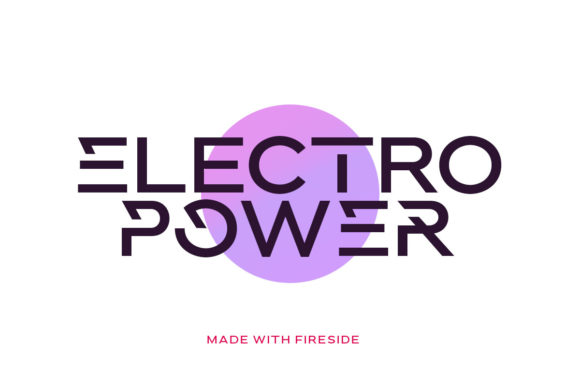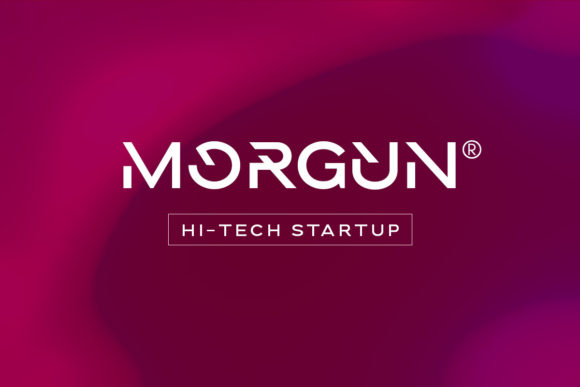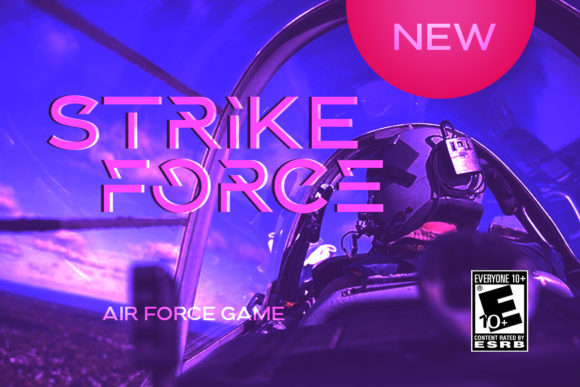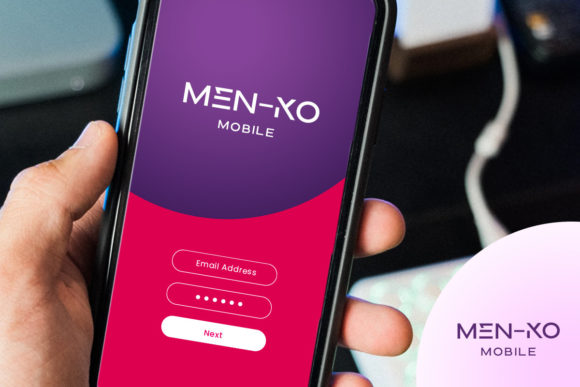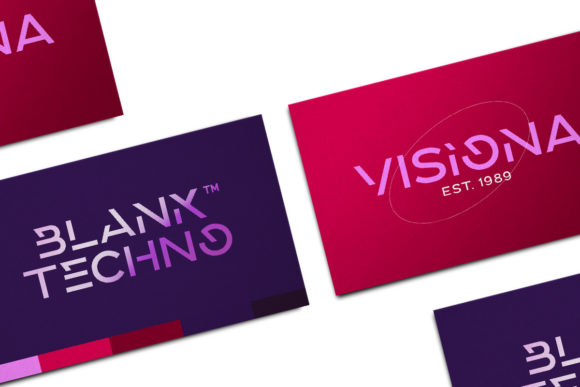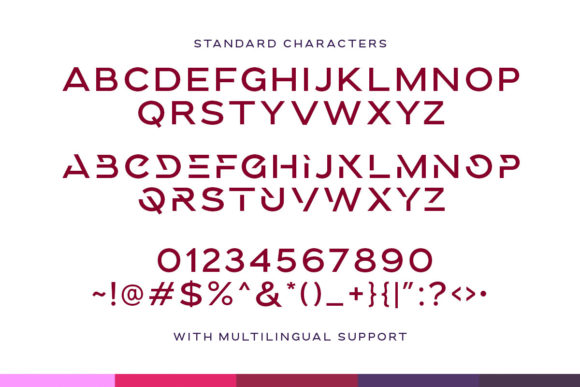
The Fireside Font: A Bold and Modern Display Font for Your Creative Projects
I’ll never forget the time I was working on a project for a client who wanted a modern and futuristic look. I had spent hours browsing through font libraries, but nothing seemed quite right. That was until I stumbled upon the Fireside font. With its bold and thick lettering, it was the perfect fit for the project. In this article, I’ll share my experience with the Fireside font, its features, and how to use it in various design platforms.
A Personal Review of Fireside Font
What I Love About Fireside Font
- ✨ Bold and thick lettering: The Fireside font is perfect for making a statement in your designs. Its bold and thick lettering grabs attention and adds a modern touch to any project.
- ✅ Versatile: This font is ideal for a wide range of design projects, from web designs and business cards to posters and flyers.
- 🎉 Easy to read: Despite its boldness, the Fireside font is surprisingly easy to read, even in smaller sizes.
While the Fireside font is amazing, there are a few things to keep in mind:
- 🤔 Limited use in body text: Due to its boldness, the Fireside font may not be the best choice for body text. It’s better suited for headings and titles.
- ⚠️ May not work well with all color schemes: The Fireside font can be quite striking, but it may not work well with all color schemes. Be sure to test it with your chosen colors before committing to a design.
The Backstory of Fireside Font
The Fireside font was designed by a team of typographers who wanted to create a bold and modern display font. Inspired by the warmth and coziness of a fireside, they crafted a font that’s both striking and inviting. With its thick lettering and geometric feel, the Fireside font is perfect for designs that require a modern and futuristic touch.
Q: What is the Fireside font best used for?
A: The Fireside font is best used for designs that require a bold and modern look, such as headings, titles, and display text.
Q: Is the Fireside font easy to read?
A: Yes, despite its boldness, the Fireside font is surprisingly easy to read, even in smaller sizes.